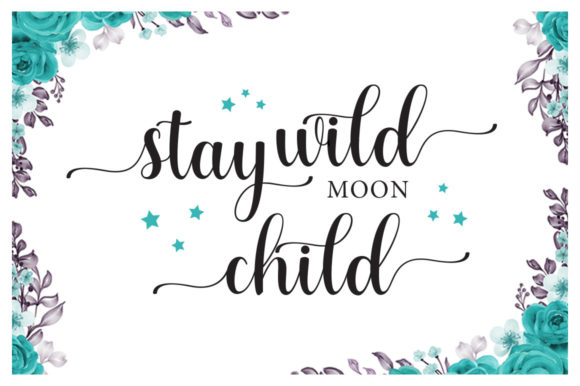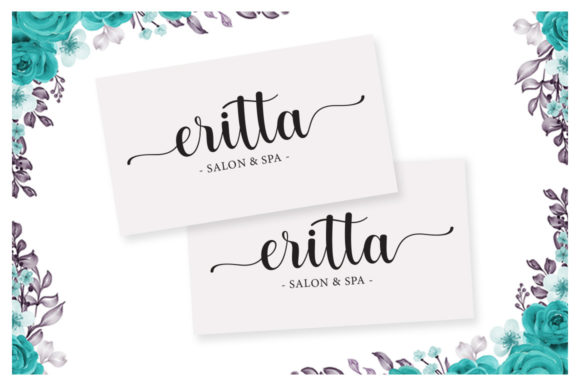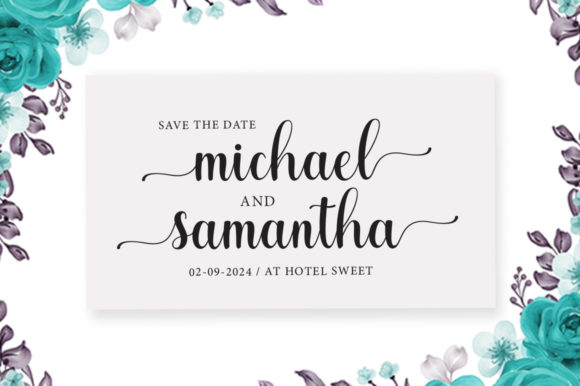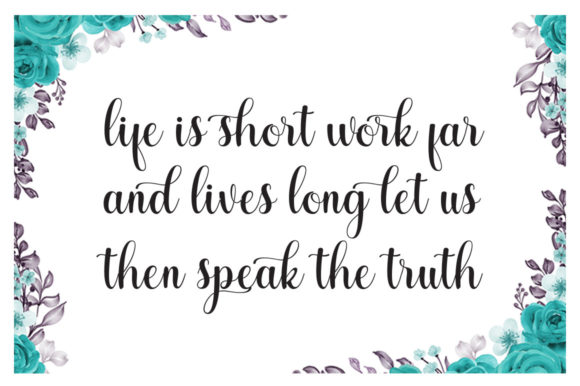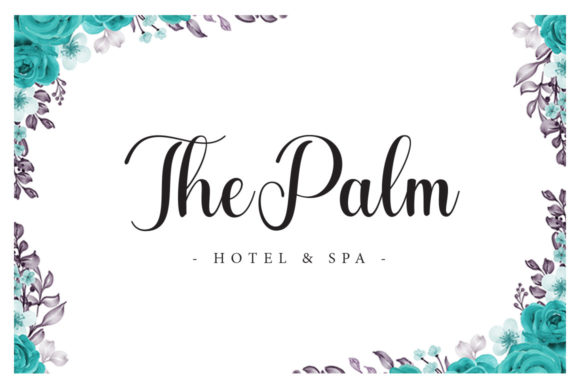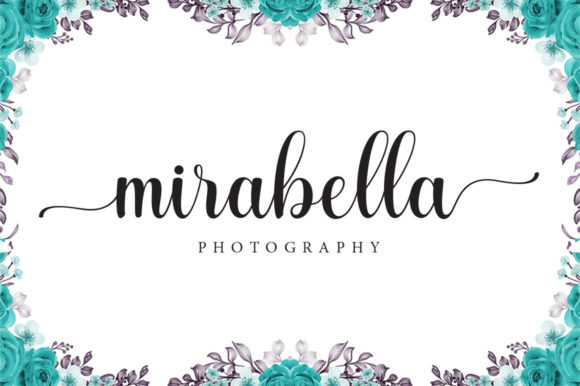
The Magic of Handwritten Love: Introducing Baloney Script Font
As a designer, have you ever found yourself pouring your heart and soul into a project, only to have the final result feel like a soulless, mass-produced cookie? We’ve all been there. But what if you could infuse your work with a little bit of whimsy, a dash of romance, and a whole lot of personality? Enter Baloney Script Font, a beautiful calligraphy typeface that’s guaranteed to make your designs sing.
Baloney Script Font is more than just a pretty face – it’s a way to add a touch of handmade magic to your work. With its PUA-encoded characters and intricate ligatures, this font is perfect for designers looking to create romantic and whimsical designs that capture the essence of handwritten love. Whether you’re a seasoned pro or a newcomer to the world of design, Baloney Script Font is a valuable addition to any toolkit.
Baloney Script Font Key Features
- Font Style: Handwritten, Script Font
- Unique Characteristics: Includes swashes, ligatures, and alternate characters for a more natural, handwritten feel
Review of Baloney Script Font
Overall, I have mixed feelings about the Baloney Script Font. While it has its charm, it also has some limitations that might make it less appealing to some users.
- ✨ Elegant and playful touch: The font’s script style adds a whimsical touch to any design, making it perfect for creative and artistic projects.
- ✨ Versatility: Baloney Script Font can be used for both digital and print media, making it a great option for designers who work on a variety of projects.
- ✨ Unique character set: The font has a wide range of characters, including punctuation and symbols, which makes it suitable for use in various contexts.
- ⚠️ Limited legibility: At smaller font sizes, the font can become difficult to read due to its ornate design.
- ⚠️ Limited compatibility: The font might not work well with certain operating systems or software, which can lead to display issues.
While Baloney Script Font is a beautiful and unique font, its limitations make it less suitable for projects that require clear and concise communication. However, it can be a great choice for creative projects where aesthetics are a top priority.
Use Baloney Script Font for:
1. Creating a vintage or retro-themed design.
2. Adding a touch of elegance and sophistication to your design.
3. Highlighting important text or quotes.
4. Creating a unique and eye-catching title or heading.
Alternatives to Baloney Script Font
Carolyna Pro is a elegant, modern script font perfect for luxury brands and high-end designs. It’s ideal for use in fashion, beauty, and lifestyle brands where sophistication and elegance are key. Carolyna Pro has a more refined and polished look compared to Baloney Script Font, making it a great choice for designers who want to add a touch of luxury to their designs.
Great Vibes is a beautiful, handwritten script font that’s perfect for adding a personal touch to designs. It’s ideal for use in creative fields such as art, music, and photography. Great Vibes has a more relaxed and casual look compared to Baloney Script Font, making it a great choice for designers who want to add a touch of whimsy to their designs.
Alex Brush is a elegant, cursive script font that’s perfect for use in luxury brands and high-end designs. It’s ideal for use in fashion, beauty, and lifestyle brands where sophistication and elegance are key. Alex Brush has a more refined and polished look compared to Baloney Script Font, but with a more vintage and classic feel.